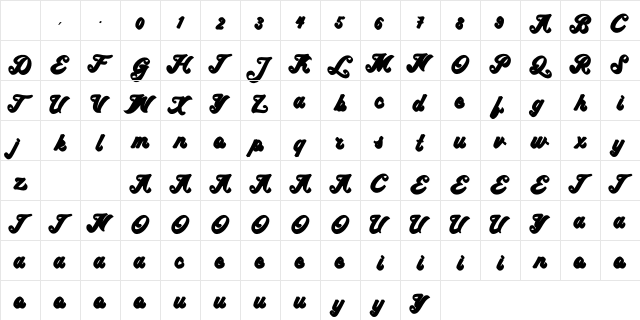
Complete Ricota Shadow glyph index. Displaying only characters natively supported by Ricota Shadow font.
Ricota is built around its visual character rather than neutral utility - its distinctive forms are designed to make an impression at display sizes.
Font Pairing: Pair with a clean neutral sans-serif for body copy to let Ricota's character lead without overwhelming the composition.
Pro Tip: Use Ricota exclusively at display sizes - it was designed to be seen, not read at length. Let a neutral companion handle body copy.